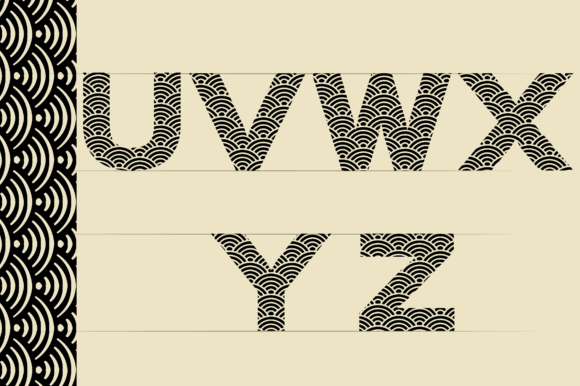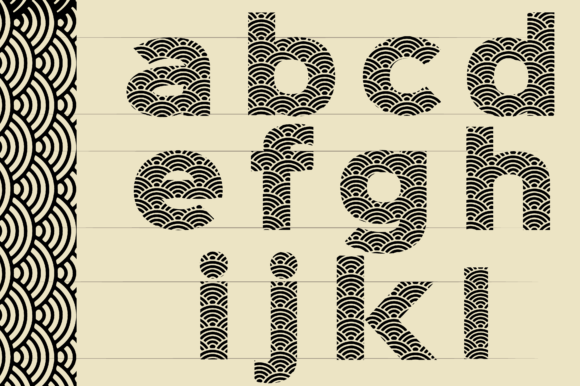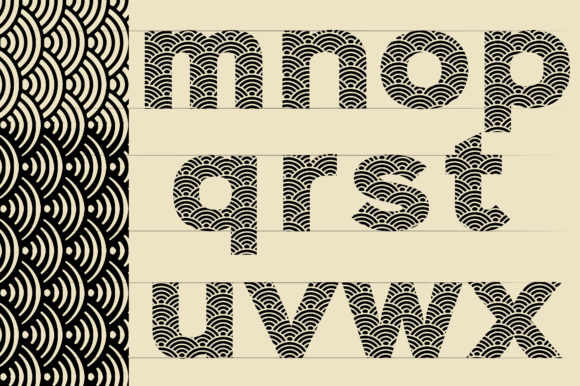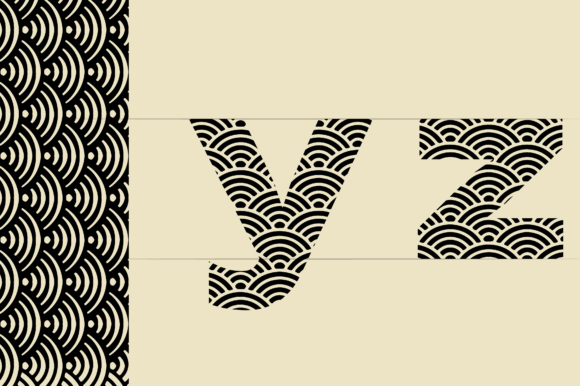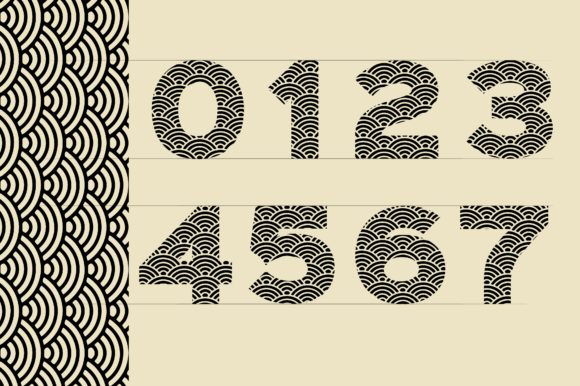
Unlock the Secrets of Vintage Elegance with Art Deco Scales Pattern Lettering Font
Have you ever been working on a design project and suddenly, you stumble upon that perfect combination of colors and patterns? The moment when everything falls into place and your creative vision starts to take shape? That’s exactly what Art Deco Scales Pattern Lettering Font can help you achieve. This unique decorative font is a masterful blend of classical Japanese wave print and Art Deco flair, designed to elevate your designs to new heights.
Art Deco Scales Pattern Lettering Font is more than just a font – it’s a tool that can bring your creative ideas to life. With its intricate patterns and elegant lines, it’s the perfect addition to any designer’s toolkit. Whether you’re working on a logo, a branding project, or a packaging design, this font has the potential to add a touch of sophistication and vintage charm to your work.
Art Deco Scales Pattern Lettering Font Key Features
- Unique Art Deco style with geometric patterns and metallic sheen, perfect for luxury and vintage designs.
- Available in 6 different font styles: Regular, Italic, Bold, Bold Italic, Outline, and Shadow, offering versatility in design applications.
- Features intricate details and ornaments, making it suitable for titles, headings, and decorative text in various design projects.
- Perfect for creating a luxurious, glamorous, and sophisticated aesthetic in designs such as branding, advertising, and packaging.
Review: Art Deco Scales Pattern Lettering Font
I must say, I was quite impressed with this font from the get-go! The intricate patterns and metallic feel of the Art Deco Scales Pattern Lettering Font make it perfect for creating a luxurious and vintage aesthetic in any design project. ✨ The combination of geometric shapes and stylized lettering is a true showstopper, and I found myself getting lost in the intricate details of the font.
One thing that really stood out to me was the versatility of this font. It’s perfect for a wide range of design projects, from elegant wedding invitations to luxurious product packaging. The font’s metallic feel also makes it perfect for creating a high-end, premium look. ✨
- Unique and intricate patterns that add a touch of luxury to any design project
- Perfect for creating a vintage or Art Deco aesthetic
- Highly versatile and suitable for a wide range of design projects
- Some users may find the font to be too ornate or overwhelming for certain design projects
- The font’s intricate details may not be suitable for text-heavy designs or small font sizes
- The metallic feel may not be suitable for designs that require a more subtle or understated aesthetic
Overall, I was thoroughly impressed with the Art Deco Scales Pattern Lettering Font. While it may have some limitations, its unique and intricate patterns make it a true standout in the world of fonts. I would highly recommend it to anyone looking to add a touch of luxury and sophistication to their design projects. ✨
The Art Deco Scales Pattern Lettering Font is ideal for creating vintage-inspired designs, such as:
- Brand logos and identity
- Home decor and wallpaper designs